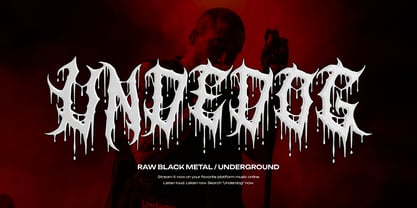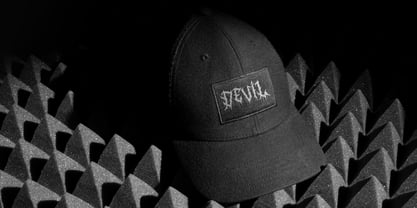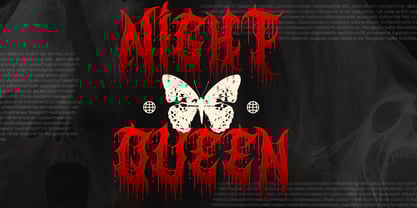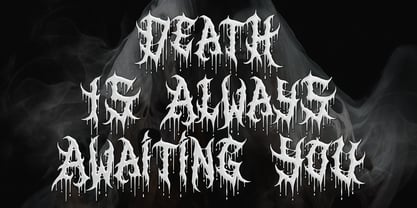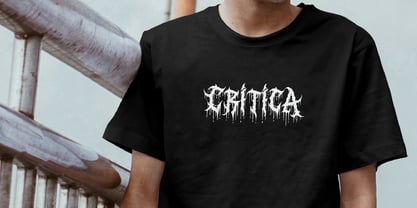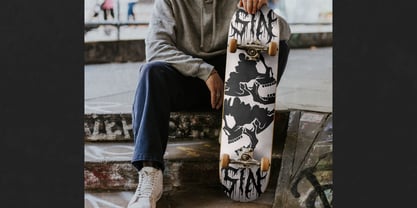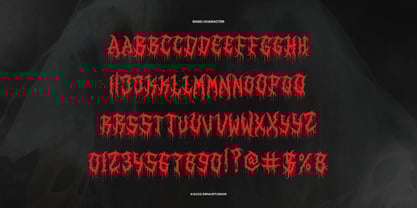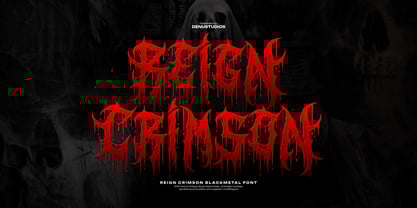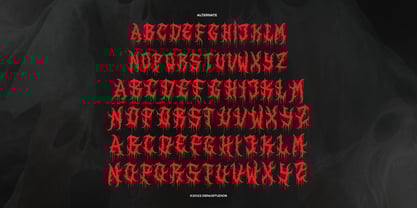
Reign Crimson
by Denustudio
The Reign Crimson Font Family was designed by Dede Nugraha and published by Denustudio. Reign Crimson contains 1 styles.
Reign Crimson | Black Metal Font, from Denustudios, suitable for any projects such as: logos, branding projects, homeware designs, product packaging, mugs, quotes, posters, shopping bags, t-shirts, book covers, name card, invitation cards, greeting cards, label, photography, watermark, special events, and all your other lovely projects that need Black Metal Font a taste.
• Regular and Italic
• Alternate and Ligature